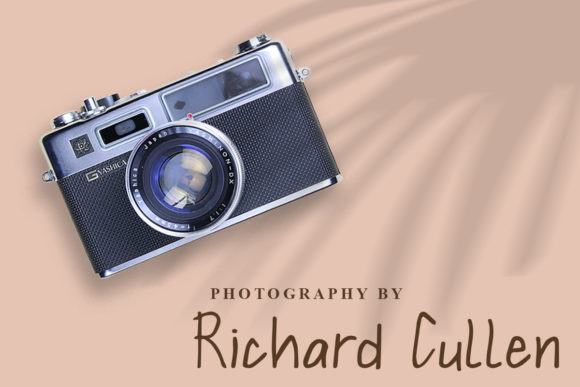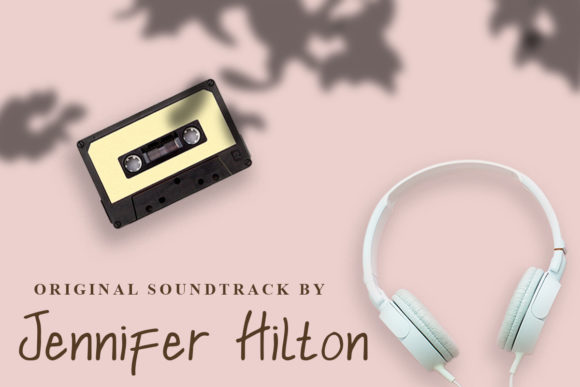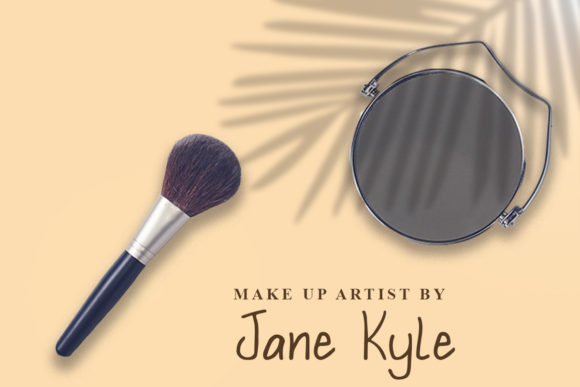
Introduction to Fresh Clinn Font
As a designer, there’s nothing quite like the thrill of discovering a new font that perfectly captures the essence of your creative vision. For me, that moment came when I stumbled upon the Fresh Clinn Font – a beautiful display font that exudes a sense of playfulness and ease. Its simple, carefree design makes it the perfect choice for delivering any message with a relaxed, casual vibe.
What I love most about Fresh Clinn Font is its versatility – it’s a design resource that can be used for everything from social media graphics to wedding invitations, and even high-quality print materials. With a transparent background, it’s incredibly easy to customize and pair with other fonts and design elements. And the best part? It’s available for a free download, making it an invaluable addition to any designer’s toolkit.
Whether you’re working on a creative project that requires a touch of whimsy or a more serious tone, Fresh Clinn Font is sure to bring a smile to your face and a sense of excitement to your design process. In this article, we’ll take a closer look at what makes this font so special and why it’s a must-have for any designer looking to add a little extra flair to their work.
Key Features of Fresh Clinn Font
- High-quality design resource ideal for creative projects, offering a unique and modern aesthetic.
- Features a transparent background, allowing for seamless integration into any design project.
- Perfect for use in digital and print design, including logos, typography, and branding materials.
- Designed with a clean and minimalist approach, making it an excellent choice for modern and creative projects.
Honest Review: Fresh Clinn Font
I recently came across the Fresh Clinn Font and was excited to dive in and see what it had to offer. As a designer, I’m always on the lookout for high-quality design resources that can elevate my creative projects.
Here are some pros and cons of the Fresh Clinn Font:
- ✨ High-quality design: The font is crisp, clear, and has a modern feel to it.
- ✨ Transparent background: The font has a transparent background, making it easy to use on top of any background image or color.
- ⚠️ Limited font styles: The font only comes in a few styles, which may not be suitable for more complex design projects.
- ⚠️ Not suitable for body text: The font is best used for headings and titles, as it can be difficult to read in large blocks of text.
Overall, I think the Fresh Clinn Font is a solid choice for designers who need a high-quality font for their creative projects. While it may not be the most versatile font, it’s a great option for headings and titles, and the free download is a major plus.
Fresh Clinn Font is a versatile and modern design resource that can elevate your creative project. It’s available for free download and features a high-quality, transparent background.
Tips for Getting the Most Out of Fresh Clinn Font
To get the most out of Fresh Clinn Font, try the following:
- Experiment with different font sizes and styles.
- Combine the font with other design elements for a unique look.
Fresh Clinn Font is ideal for a variety of creative projects, including:
- Graphic design.
- Web design.
- Print design.